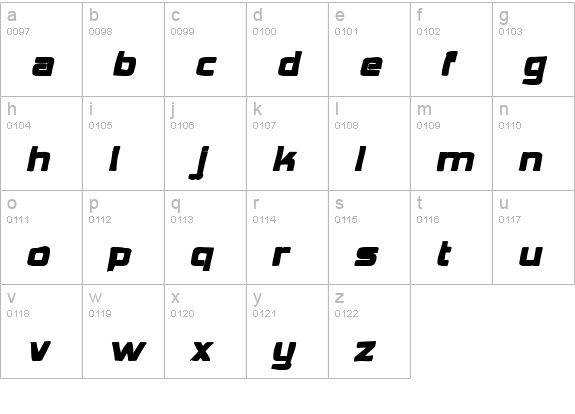
Hemi Head Ink Font Details
Hemi Head Ink font is a striking display typeface that exudes an edgy and bold aesthetic. With its unique design featuring sharp edges and thick lines, this font is perfect for creating eye-catching headlines and attention-grabbing designs. The rugged and rebellious look of Hemi Head Ink font makes it ideal for projects that require a touch of attitude and individuality. Best of all, Hemi Head Ink font is available for free download at FontsMarket.com. Whether you're working on a poster, logo, or any other creative project, this font will certainly make a statement. Add a touch of personality and originality to your designs with Hemi Head Ink font today!